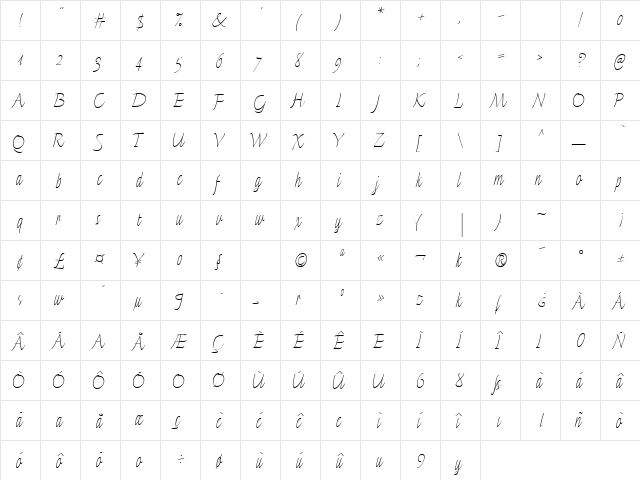
GMFinerliner Micro Font Preview
GMFinerliner Micro
GMFinerliner Micro Font Details
| Style | Micro |
Design Context for GMFinerliner Typeface
GMFinerliner offers clean, dependable letterforms without strong stylistic allegiance, making it a practical choice for designers who need flexibility.